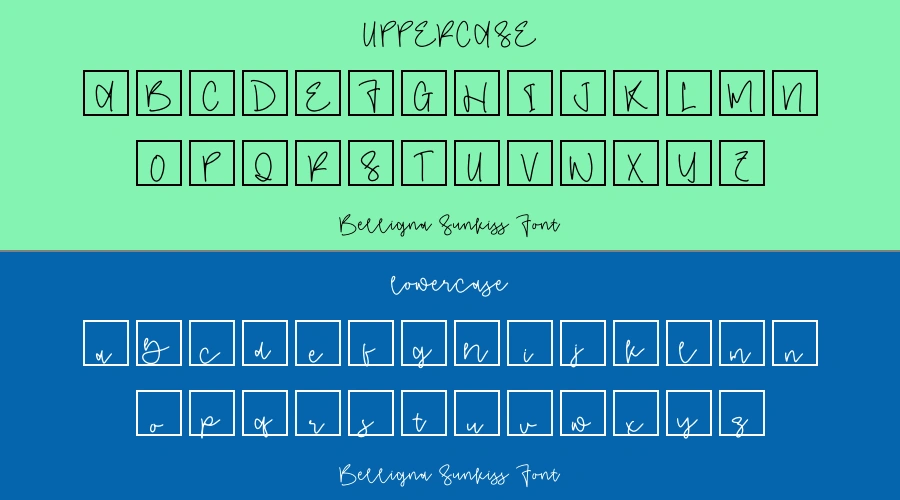
About Belligna Sunkiss Font
Designed with precision, Belligna Sunkiss Font merges elegant curves with visual hierarchy in every character. This versatility makes it particularly effective for advertising headers, where sophistication and application safety directly impact communication quality. Each letterform demonstrates meticulous craftsmanship.
Technical excellence shines through elements like sharp edges and expert sets, enhancing typographic versatility. In campaign headers settings, Belligna Sunkiss Font proves its worth through superior reproduction fidelity. The thoughtful execution of x-height and brand personality ensures professional results.